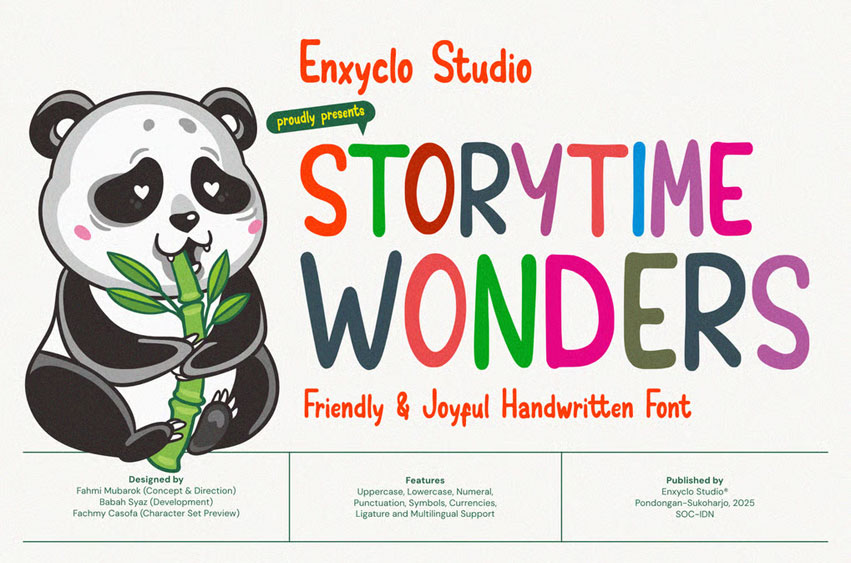
Storytime Wonders Font
Storytime Wonders Font is a whimsical handwritten font inspired by the charm of storybook adventures, fairytales, and children’s imagination. Its soft, playful strokes capture the innocence and wonder of a hand-drawn style, perfect for bringing warmth and personality to your children’s stories and picture books.
Whether you’re crafting a children’s book cover, designing an illustrated fairytale, or creating adventure-inspired posters, this font adds a touch of storytelling magic to every design. Let your creativity wander through enchanted forests, brave adventures, and dreamy bedtime stories, all told through the friendly, handcrafted charm of Storytime Wonders.
• Uppercase letters
• Lowercase letters
• Punctuation marks
• Symbol set
• Currency symbols
PERFECT FOR
• Children’s storybooks and picture books
• Fairytale and fantasy titles
• Kids’ story illustrations and covers
• Whimsical posters and quotes
• Educational materials for children
• Book covers and chapter headings
• Nursery room art and wall prints
• Playful invitations or greeting cards
• Animation or children’s game design
• Creative branding for kids’ products